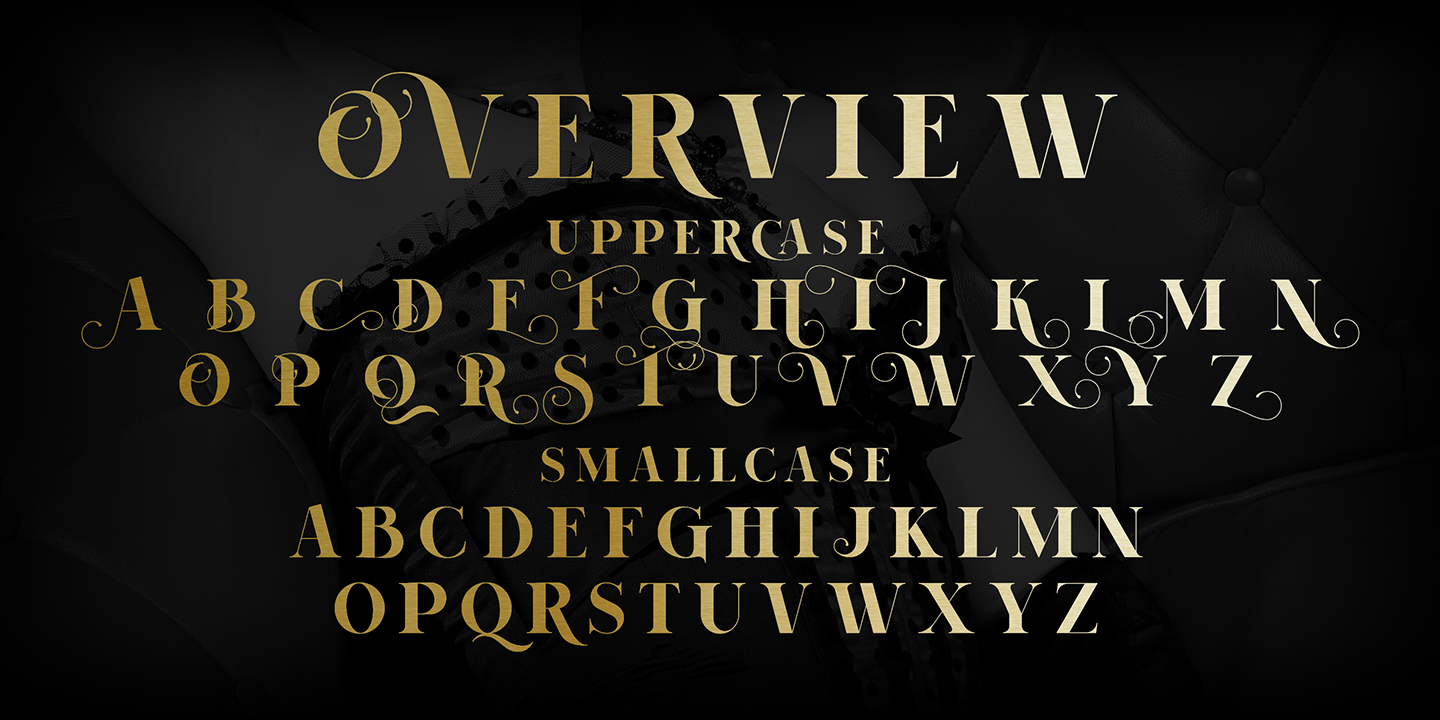
Voguer Font is a chic and sophisticated display typeface that effortlessly embodies modern elegance and high-fashion aesthetics. Its refined lines, often subtle curves, and distinctive contemporary flair make it an exceptional choice for projects that aim to convey luxury, style, and exclusivity. Imagine it perfect for high-end fashion branding, glossy magazine editorials, luxury product packaging, elegant event invitations, sophisticated beauty campaigns, and cutting-edge website headers. This font excels in environments where visual impact, a sense of refined taste, and an unmistakable modern allure are paramount. It’s particularly effective for conveying class, artistry, and a unique sense of trend-setting design, ensuring your message not only stands out but also resonates with an irresistible grace and contemporary charm.
What makes Voguer Font truly exciting is its ability to seamlessly blend minimalist sophistication with a captivating visual presence. It often features delicate contrasts, precise spacing, or subtle stylistic elements that give each character a unique, almost bespoke feel, as if it were designed exclusively for a high-fashion runway. This font isn't just about displaying text; it's about setting a mood, curating an experience, and injecting your designs with a sense of vibrant modernity and undeniable elegance. It has a powerful ability to feel both incredibly luxurious and surprisingly versatile, making it an ideal tool for designers who want their work to convey sophistication, style, and a truly memorable visual impact. Voguer Font empowers brands and creatives to project an image that is refined, exclusive, and full of contemporary allure.
The Voguer Font family typically offers a range of weights and styles to ensure maximum versatility for diverse design projects. You'll often find it includes a spectrum from light or thin to regular, medium, and bold, providing robust options for typographic hierarchy and emphasis. Corresponding italic styles may also be available, allowing for dynamic variations in text presentation. This extensive family ensures that Voguer Font Free Download can adapt seamlessly to any design challenge, from exquisite headlines that demand attention to elegant body text in a high-end publication, all while maintaining a consistent and harmonious visual language. Its broad character set usually covers a wide range of Latin characters, numbers, and extensive punctuation, making it suitable for international projects and sophisticated textual layouts.